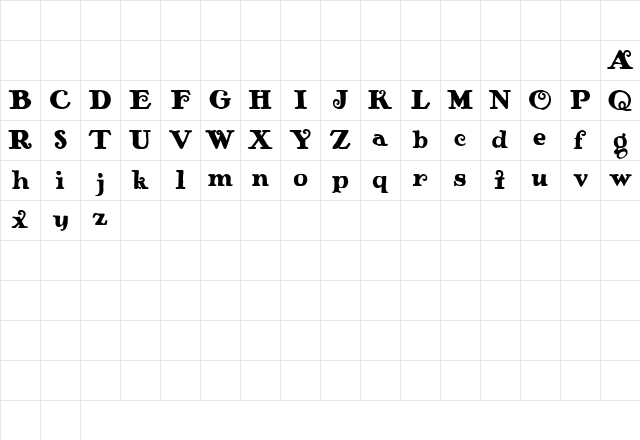
Plakat Demo Regular Free Font
Plakat Demo Regular
Design Context for Plakat Demo
Plakat Demo is a composed and adaptable typeface that performs quietly and consistently across a wide range of design contexts.